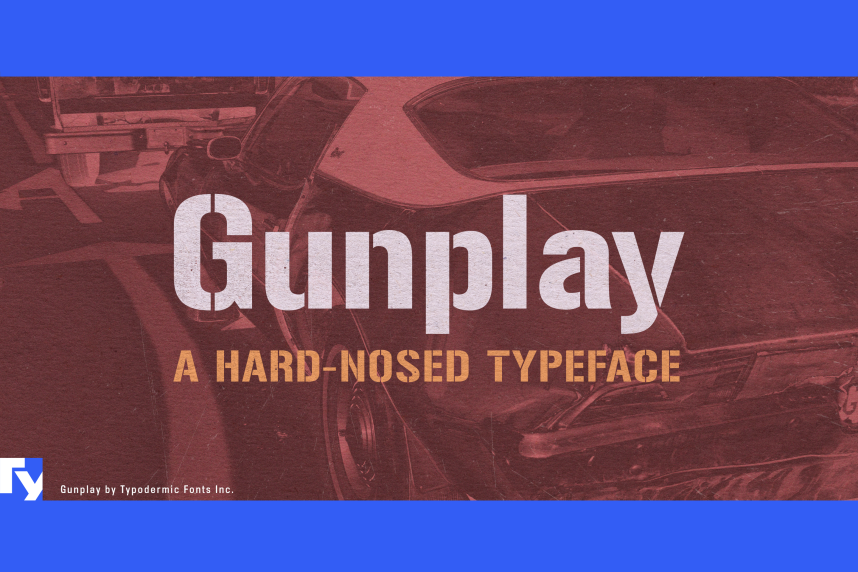
Gunplay Font, which was designed by Ray Larabie and published by Typodermic in 2000, belongs to the stencil and display sans serif typeface family. This typeface was inspired by the lettering from the 1972 film The Getaway, giving it a gritty, rugged aesthetic with sharp angles and dense forms.
The Gunplay family includes four styles: Regular, 3D, Damage, and Spraypaint. The font was first released in 2000 and has since become a popular choice for posters, logos, apparel, and bold editorial layouts.